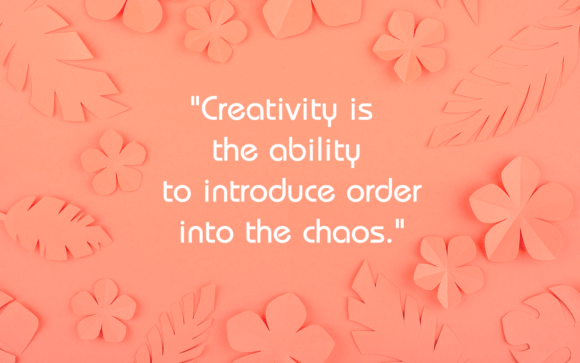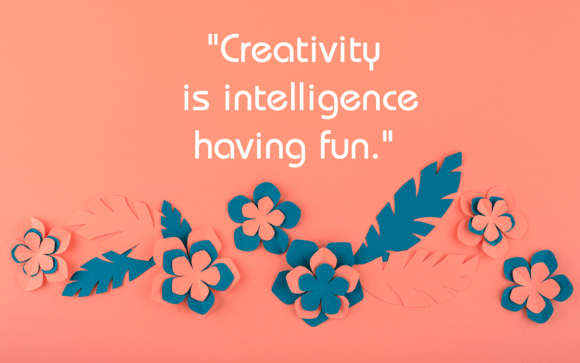
Introducing the Enigma Font: A Rebellious and Contemporary Typeface
In the world of typography, fonts play a crucial role in shaping the identity of a brand. A well-designed font can make a brand stand out, convey its message, and leave a lasting impression on its audience. For brands that want to break free from the norms and make a statement, the Enigma Font is the perfect choice. This rebellious and contemporary typeface is designed to grab attention, communicate uniqueness, and give logos and graphics a distinctive edge.
The Design of Enigma Font
The Enigma Font is characterized by its bold, unconventional shapes that break away from traditional typography. Its design is edgy and daring, making it perfect for brands that want to challenge the status quo and make a statement. The font features striking, irregular forms that grab attention and communicate uniqueness at first glance. The unexpected angles and playful proportions make it ideal for brands that want to highlight their individuality and creative spirit.
Key Features of Enigma Font
- Bold and Unconventional Shapes: The Enigma Font features bold and unconventional shapes that break away from traditional typography.
- Edgy and Daring Design: The font’s design is edgy and daring, making it perfect for brands that want to challenge the status quo and make a statement.
- Striking and Irregular Forms: The font features striking, irregular forms that grab attention and communicate uniqueness at first glance.
- Unexpected Angles and Playful Proportions: The unexpected angles and playful proportions make it ideal for brands that want to highlight their individuality and creative spirit.
Who is Enigma Font for?
The Enigma Font is perfect for brands that want to stand out and make a statement. It’s ideal for designers, crafters, and entrepreneurs who want to add a touch of personality to their logos, graphics, and marketing materials. Whether you’re a fashion brand, a tech startup, or an artist, the Enigma Font can help you communicate your unique message and leave a lasting impression on your audience.
How to Use Enigma Font
The Enigma Font can be used in a variety of ways to add a touch of personality to your designs. Here are a few ideas:
- Logos and Branding: Use the Enigma Font to create a unique and memorable logo that sets your brand apart.
- Headings and Titles: Use the font to create bold and eye-catching headings and titles that grab attention.
- Graphics and Illustrations: Use the font to add a touch of personality to your graphics and illustrations.
- Marketing Materials: Use the font to create eye-catching marketing materials such as brochures, flyers, and posters.
Tips for Pairing Enigma Font with Other Fonts
Pairing the Enigma Font with other fonts can help you create a unique and harmonious design. Here are a few tips:
- Pair with a Serif Font: Pair the Enigma Font with a serif font to create a nice contrast between bold and traditional typography.
- Pair with a Script Font: Pair the font with a script font to add a touch of elegance and sophistication to your design.
- Experiment with Font Sizes: Experiment with different font sizes to create visual interest and hierarchy in your design.
The Enigma Font is a rebellious and contemporary typeface that’s perfect for brands that want to stand out and make a statement. Its bold, unconventional shapes and edgy design make it ideal for designers, crafters, and entrepreneurs who want to add a touch of personality to their logos, graphics, and marketing materials. With its striking, irregular forms and unexpected angles, the Enigma Font is sure to grab attention and communicate uniqueness at first glance.